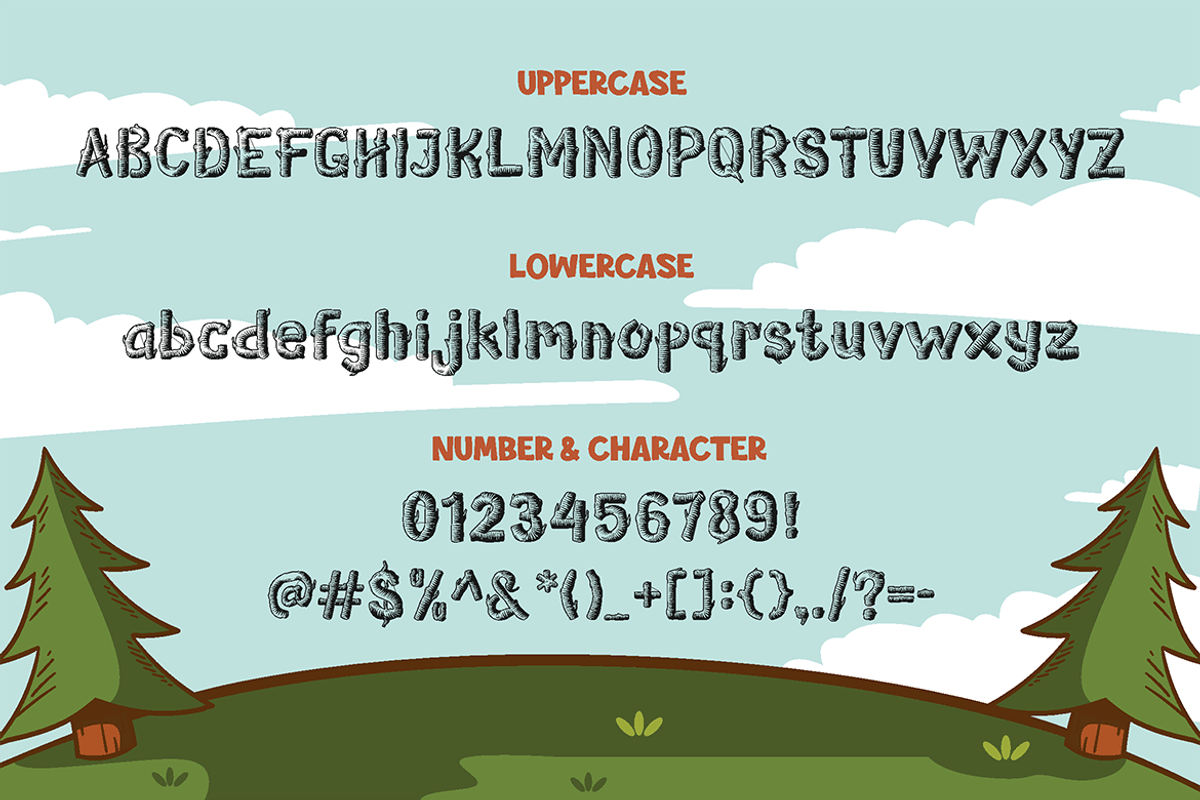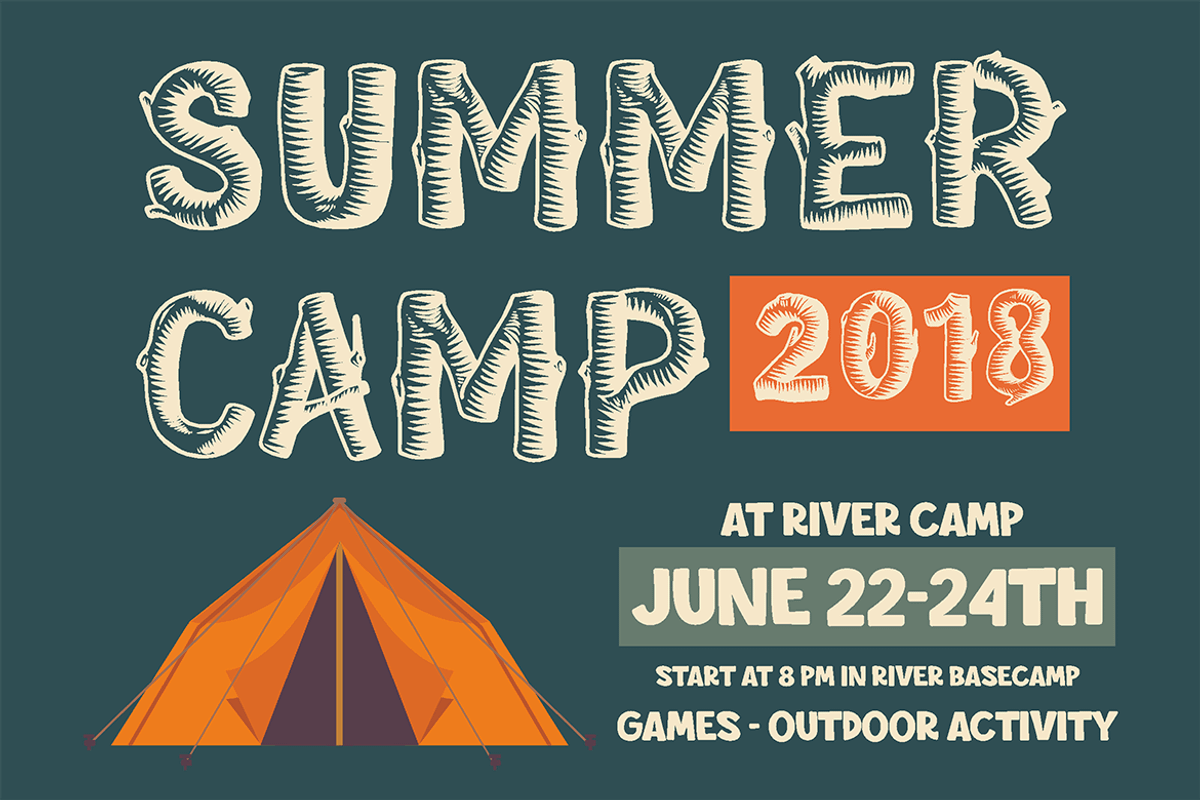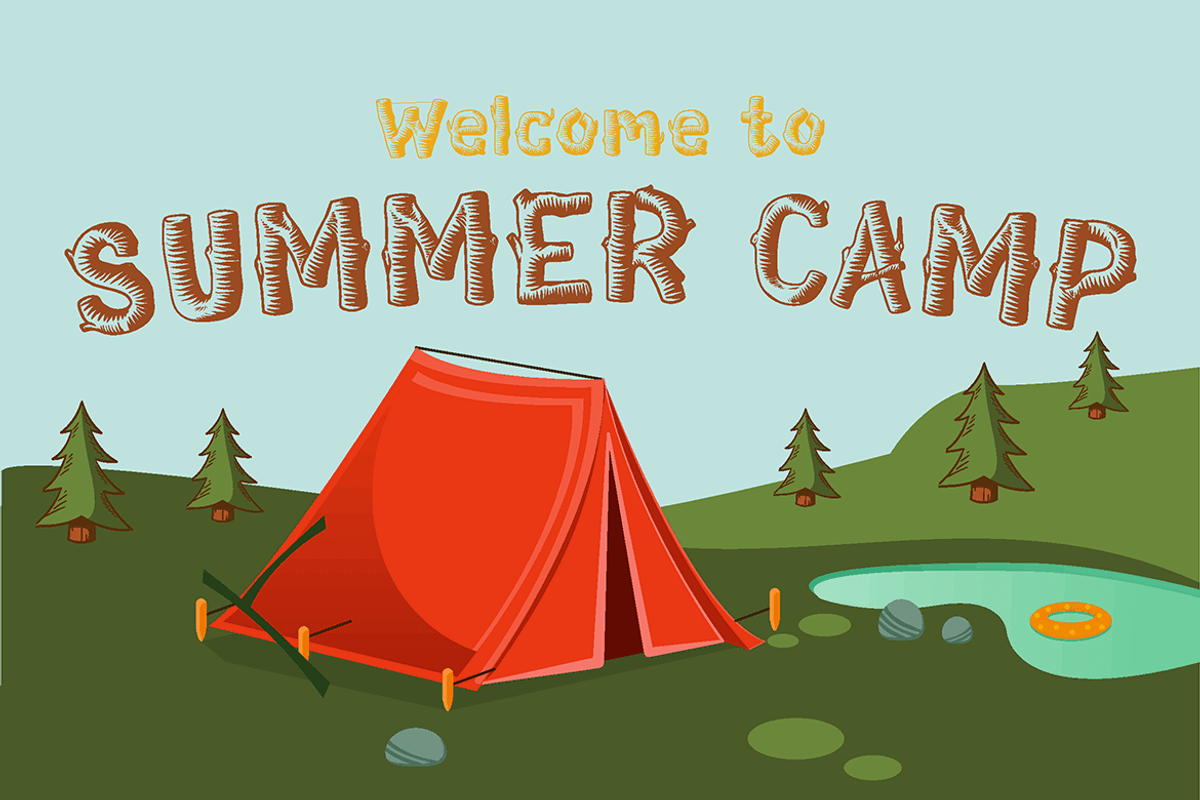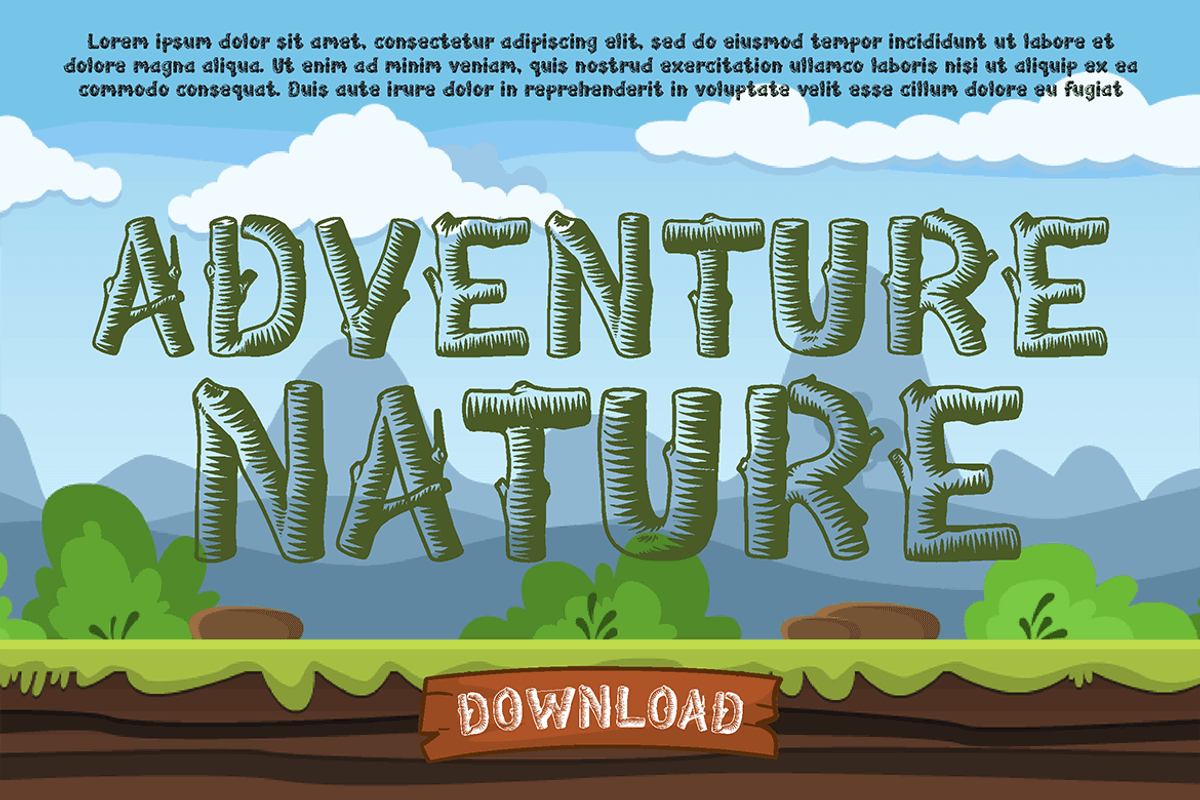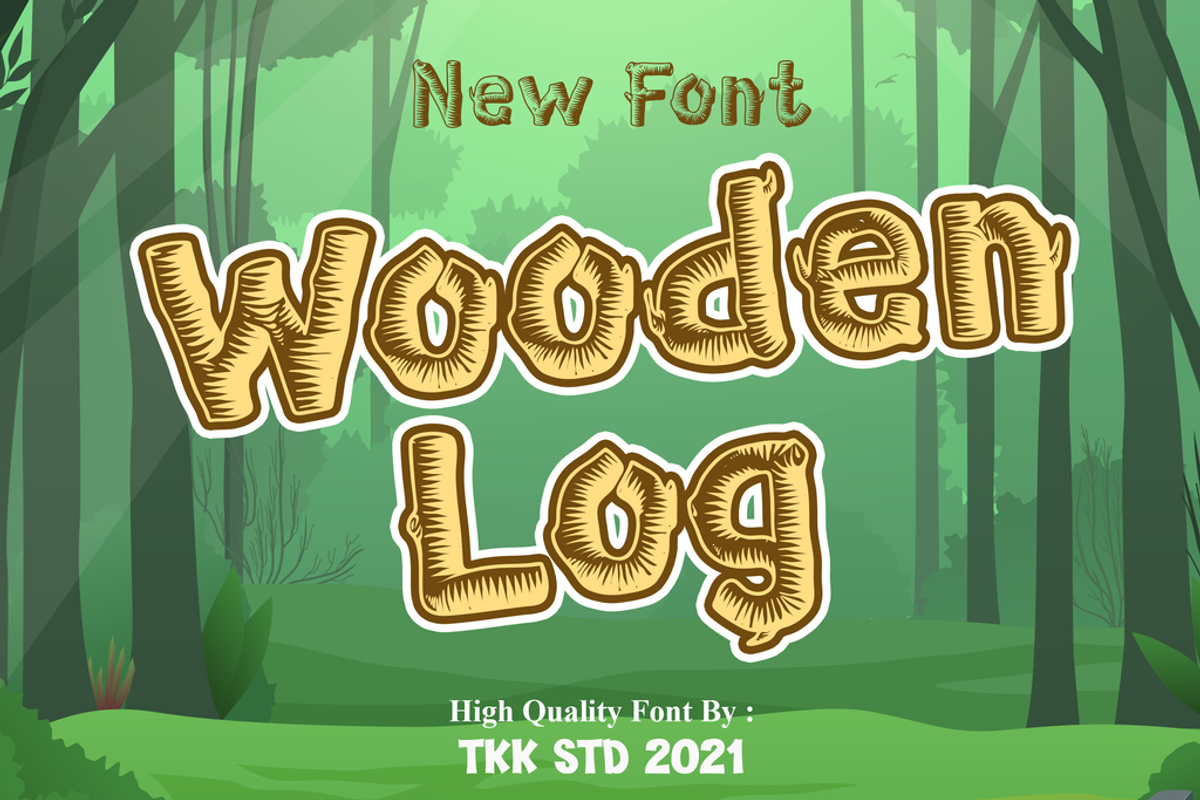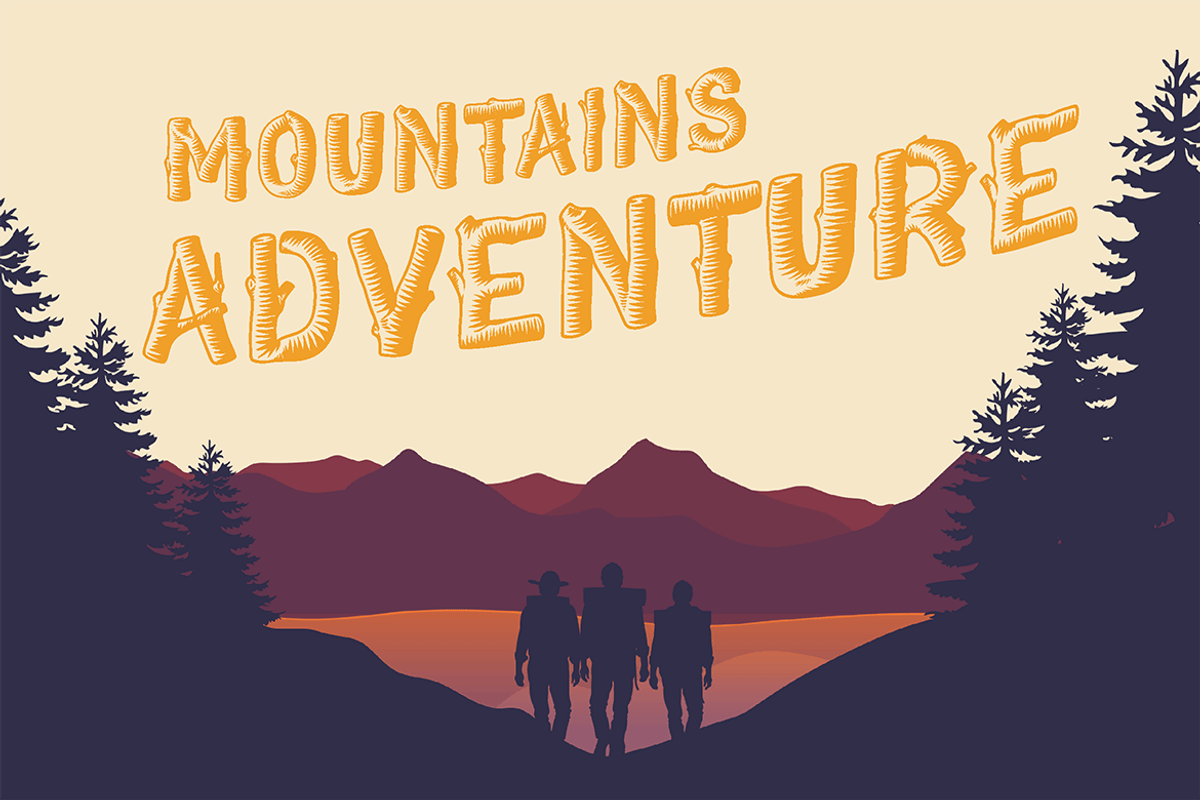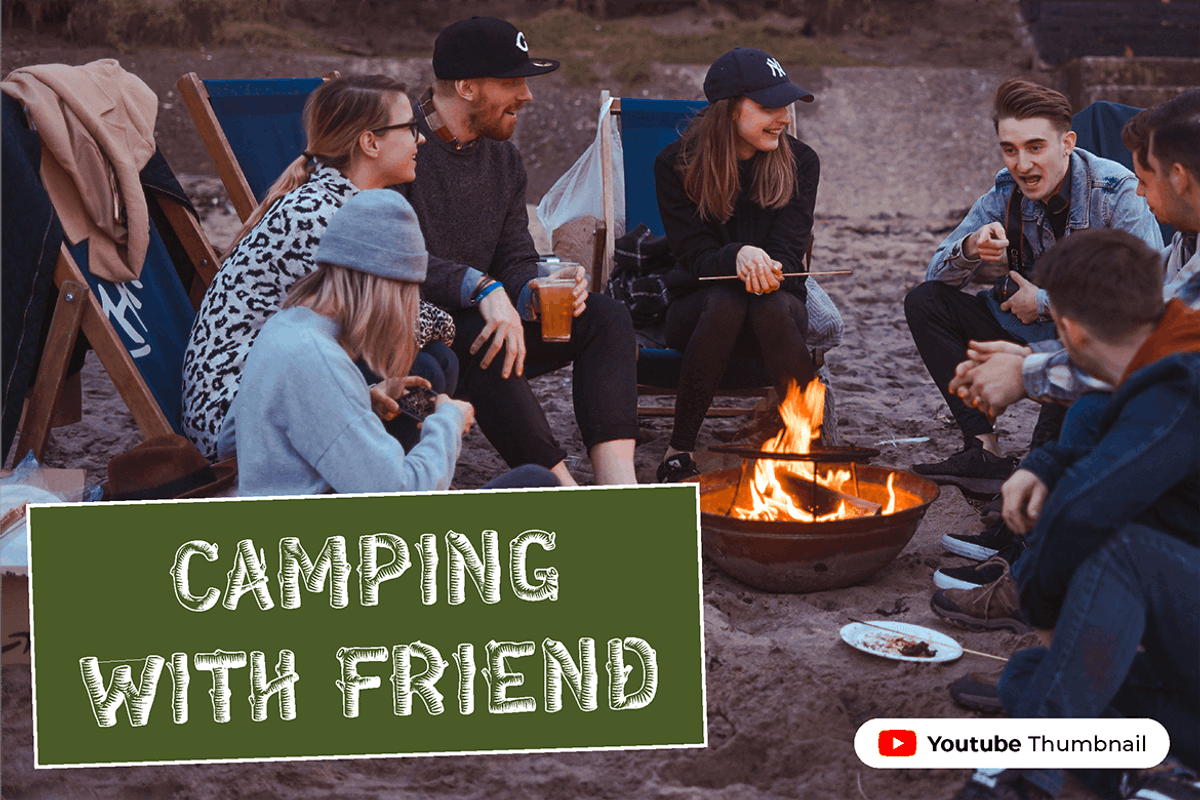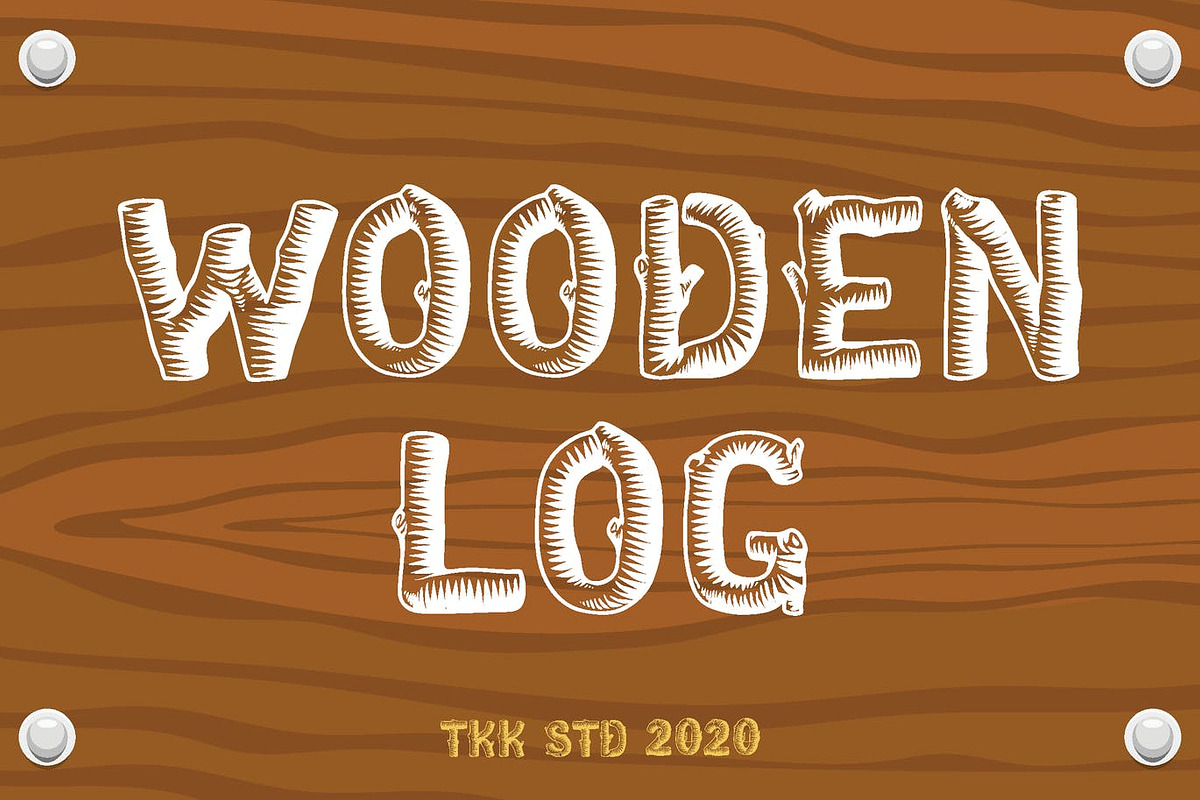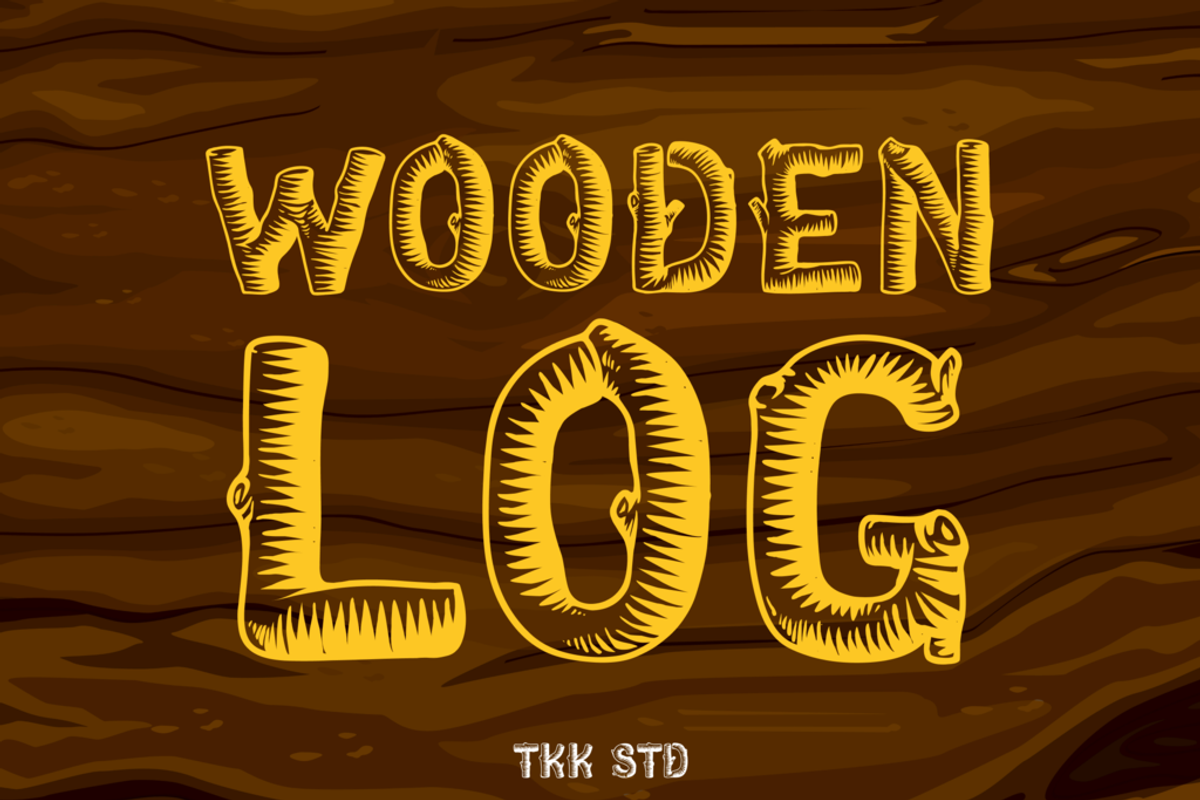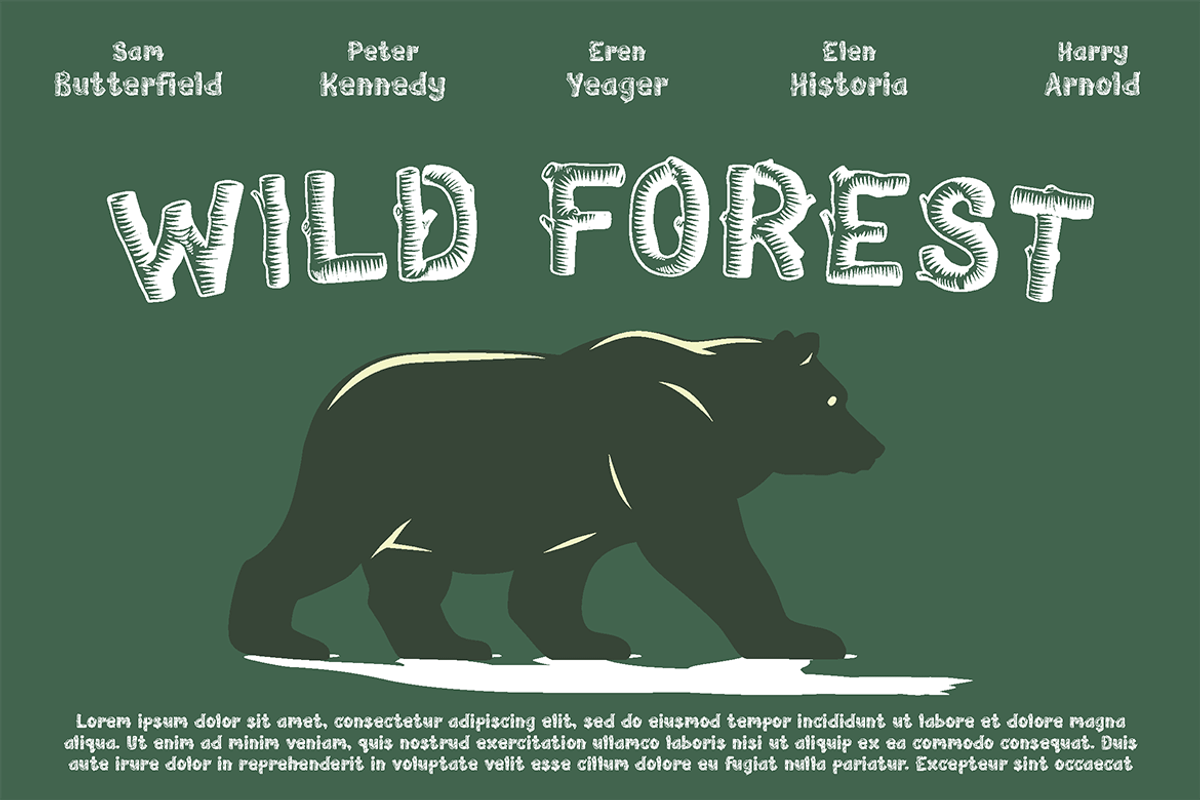
Wooden Log - Kids Font
Wooden Log kids font it’s like using a stranded wooden log, found on the riverbank, and got the perfect shape wood log to be used as an alphabet.
Suit perfectly for Adventure on Jungle Online Games, poster, movie title, Campsite typeface, fast food menu, magazine, youtube covers, youtube thumbnails, social media page covers and so on…